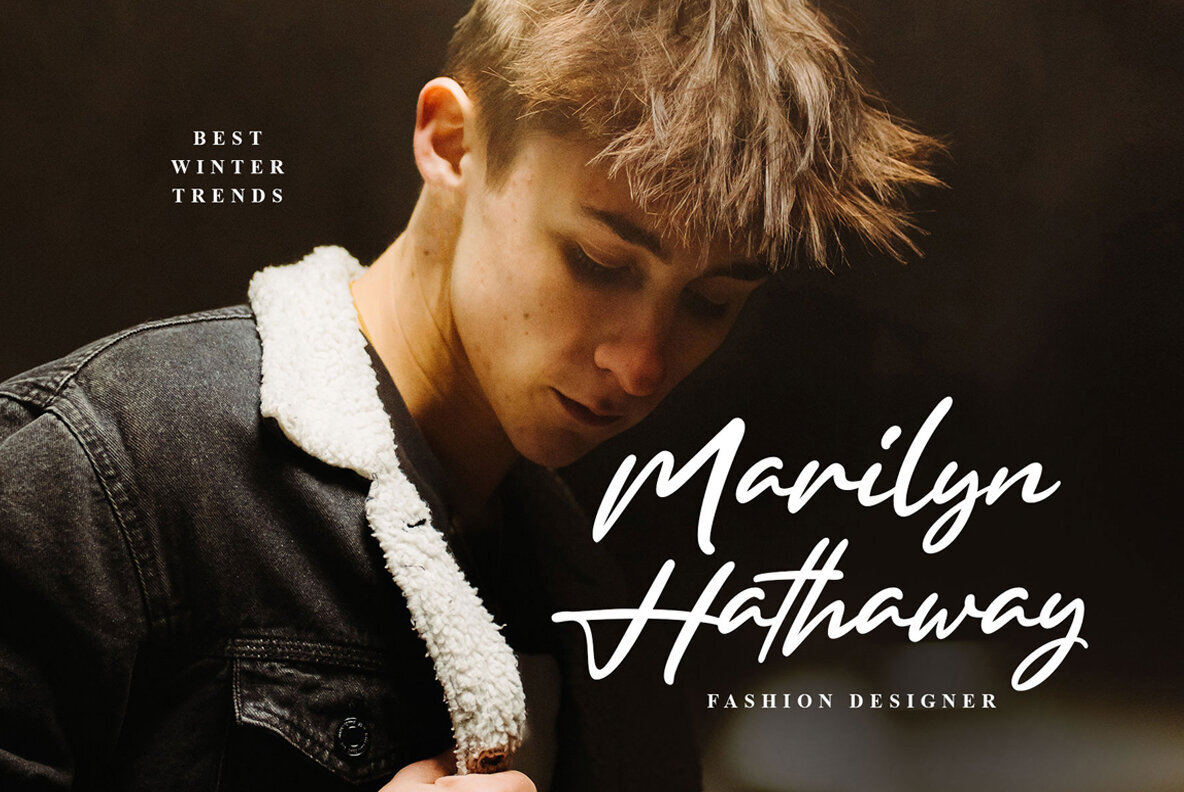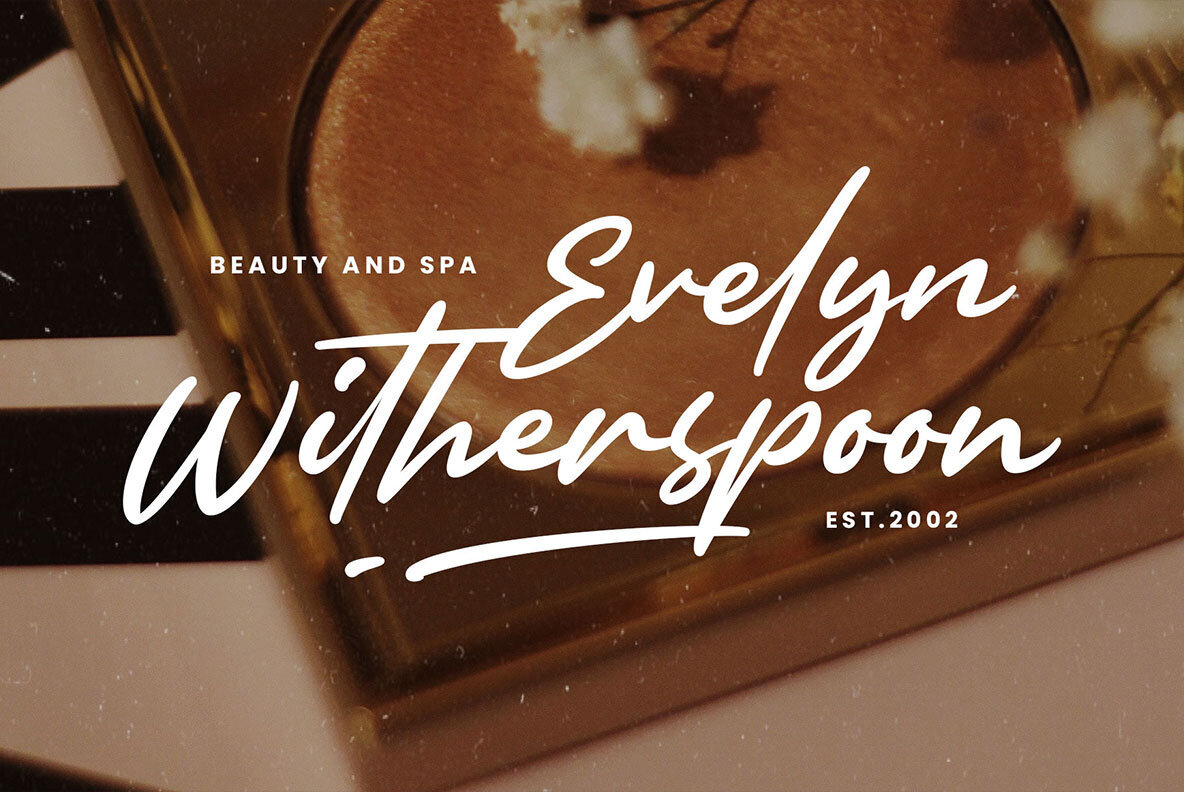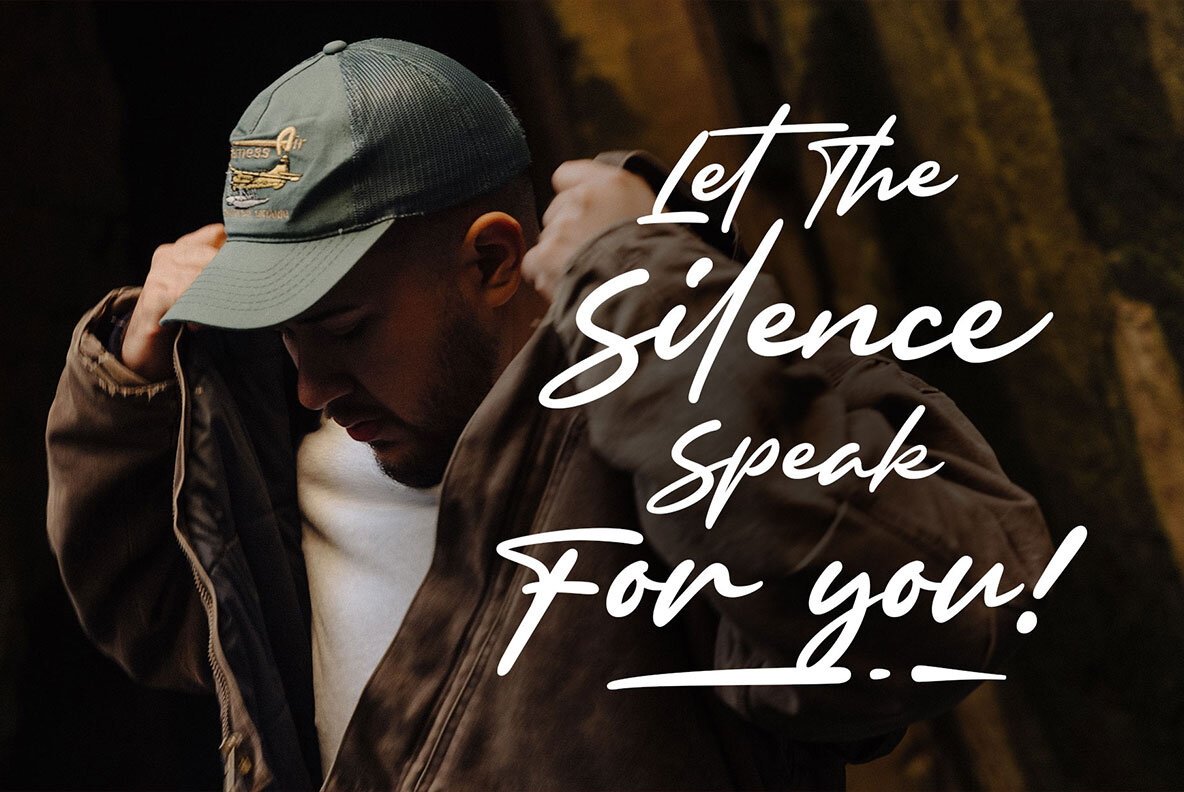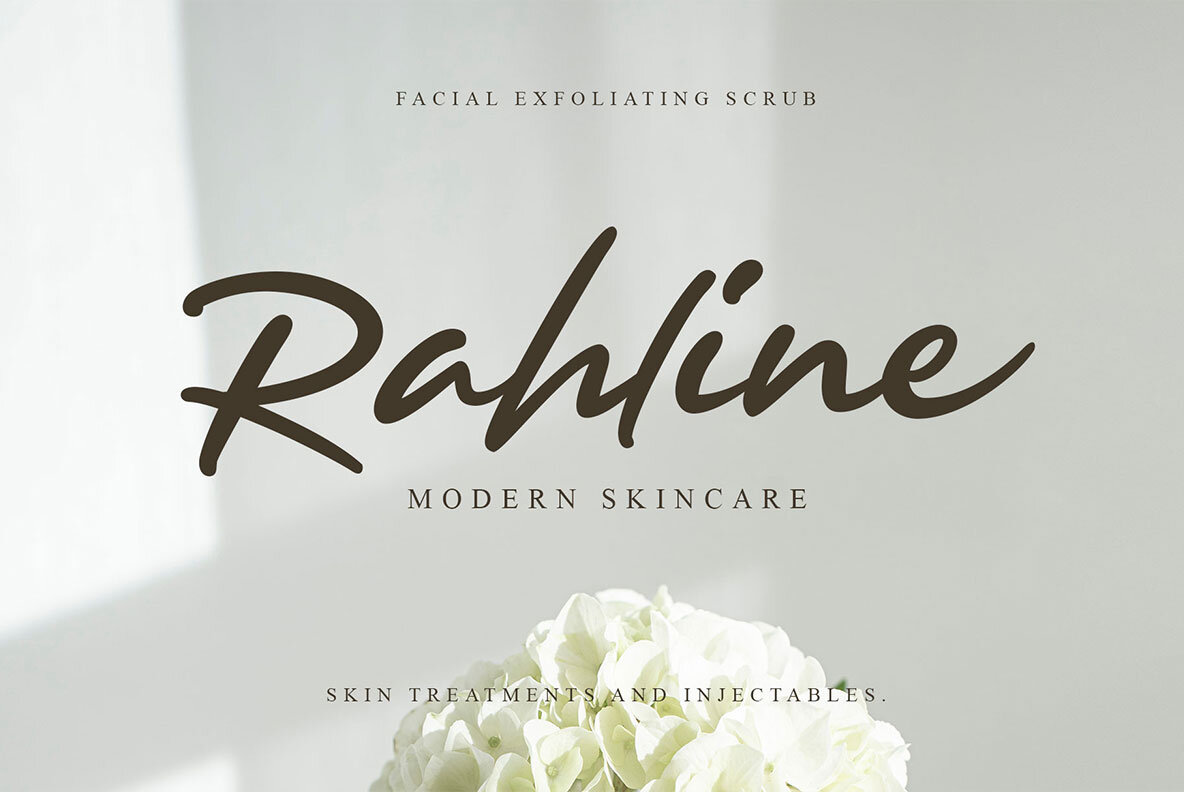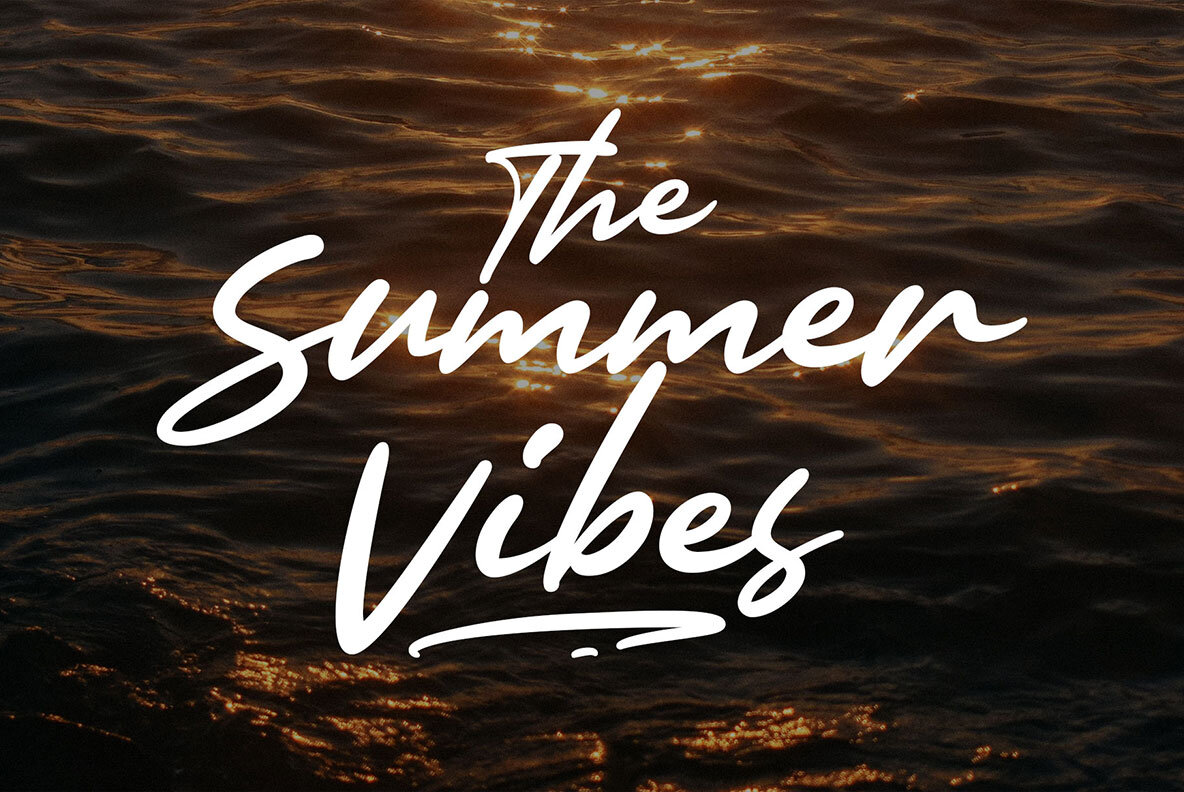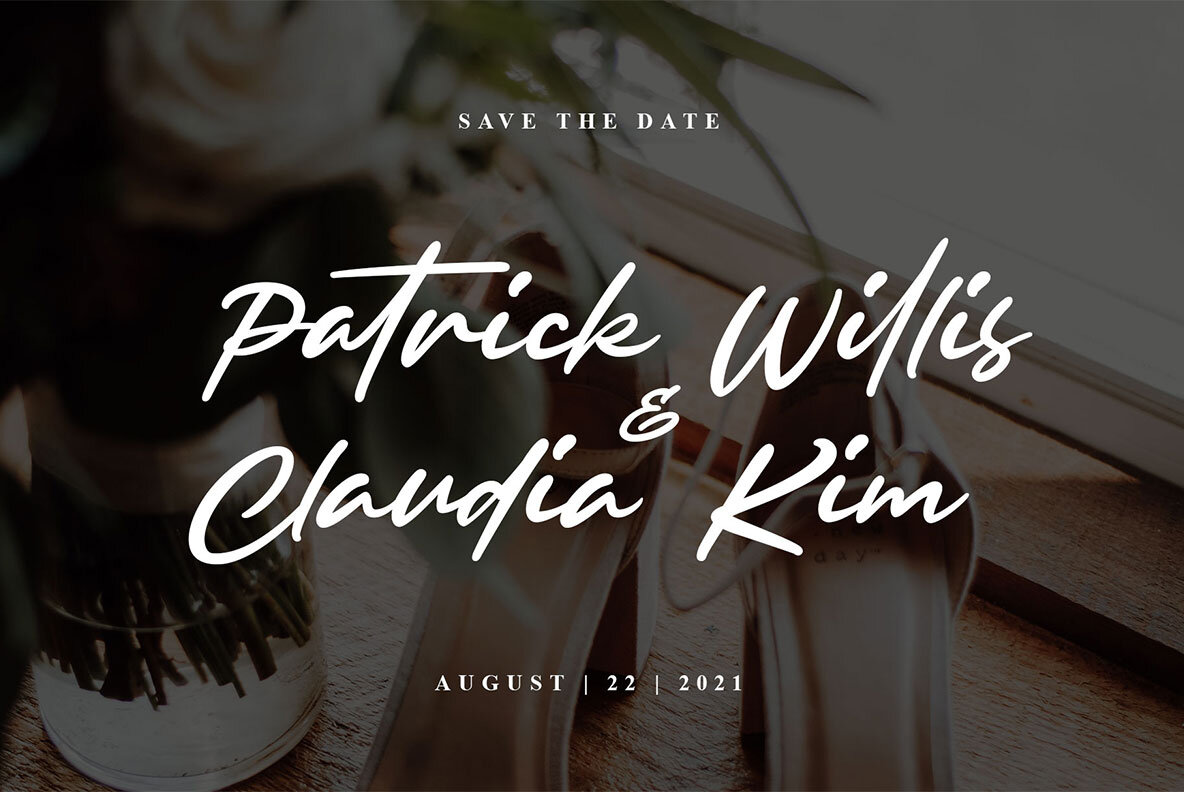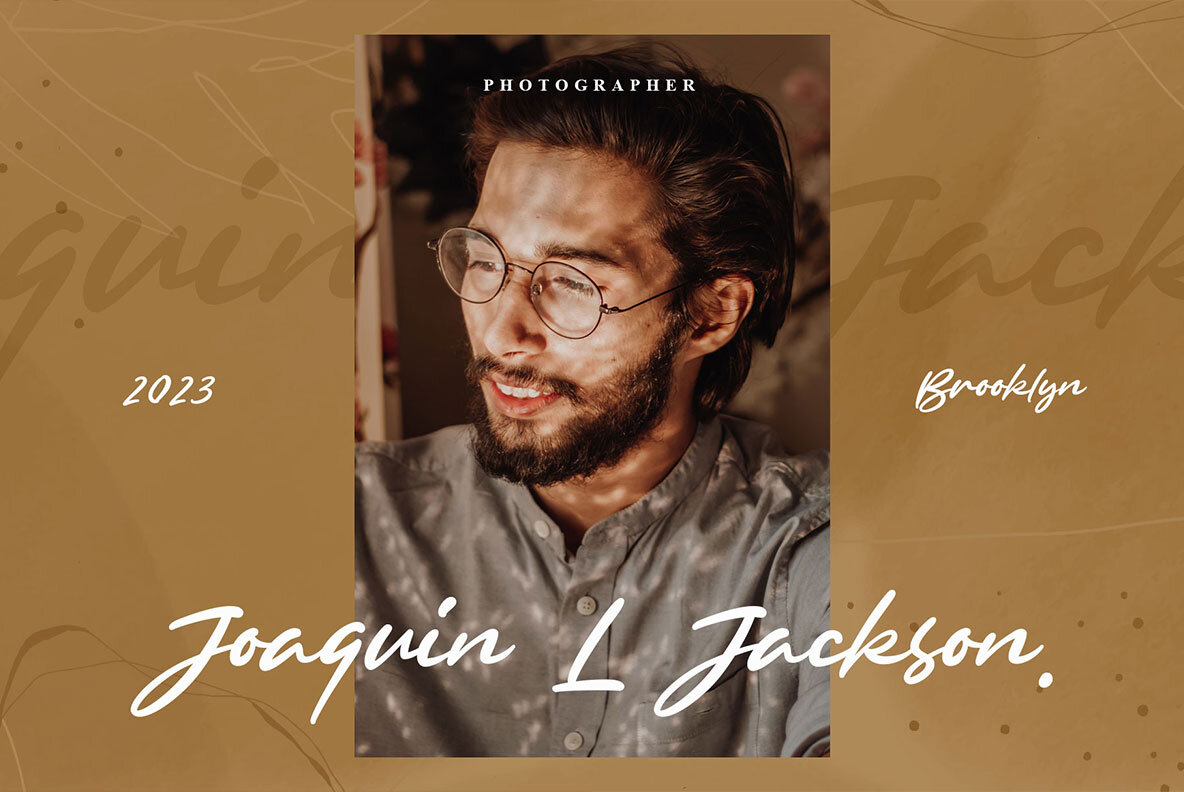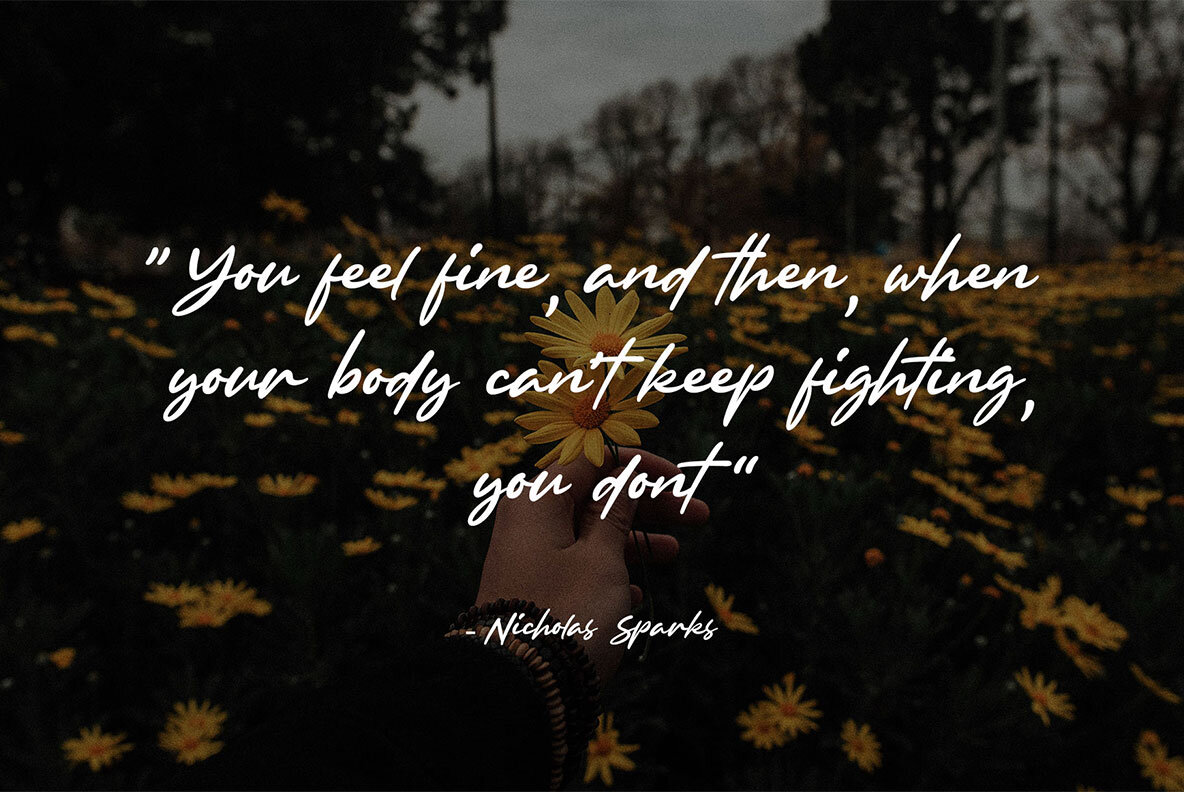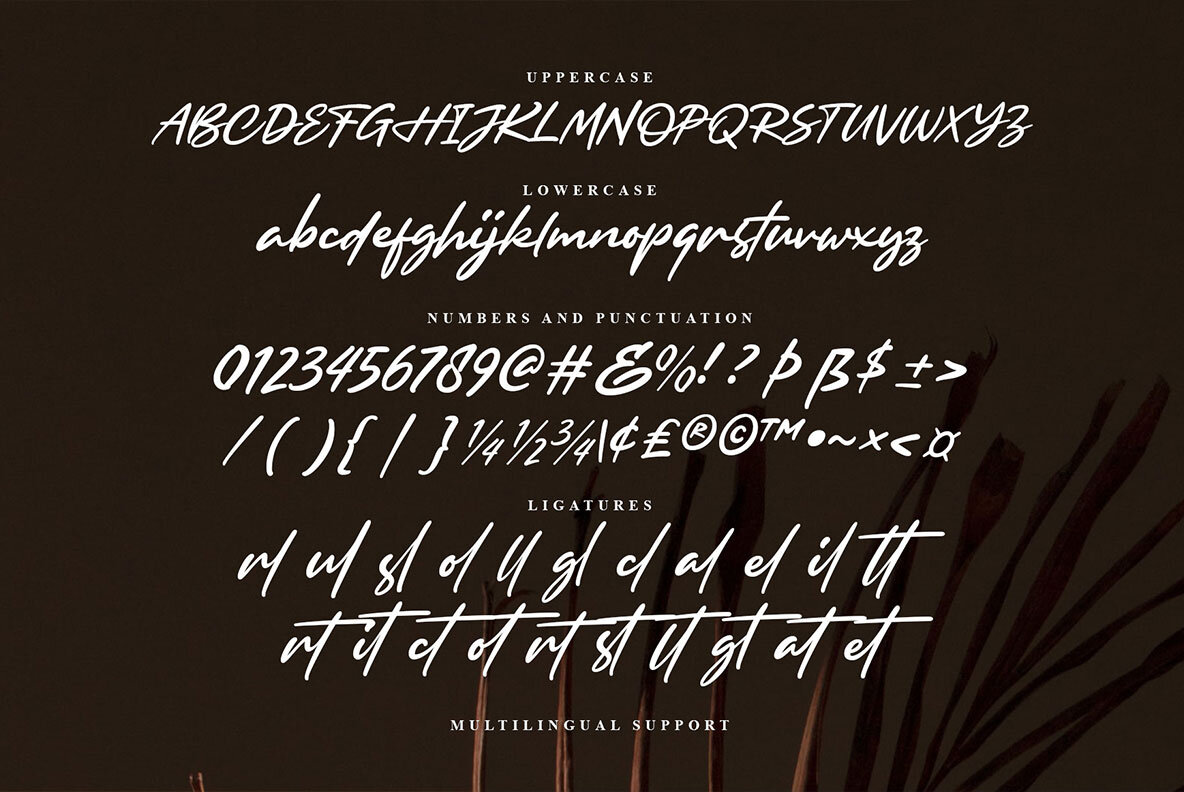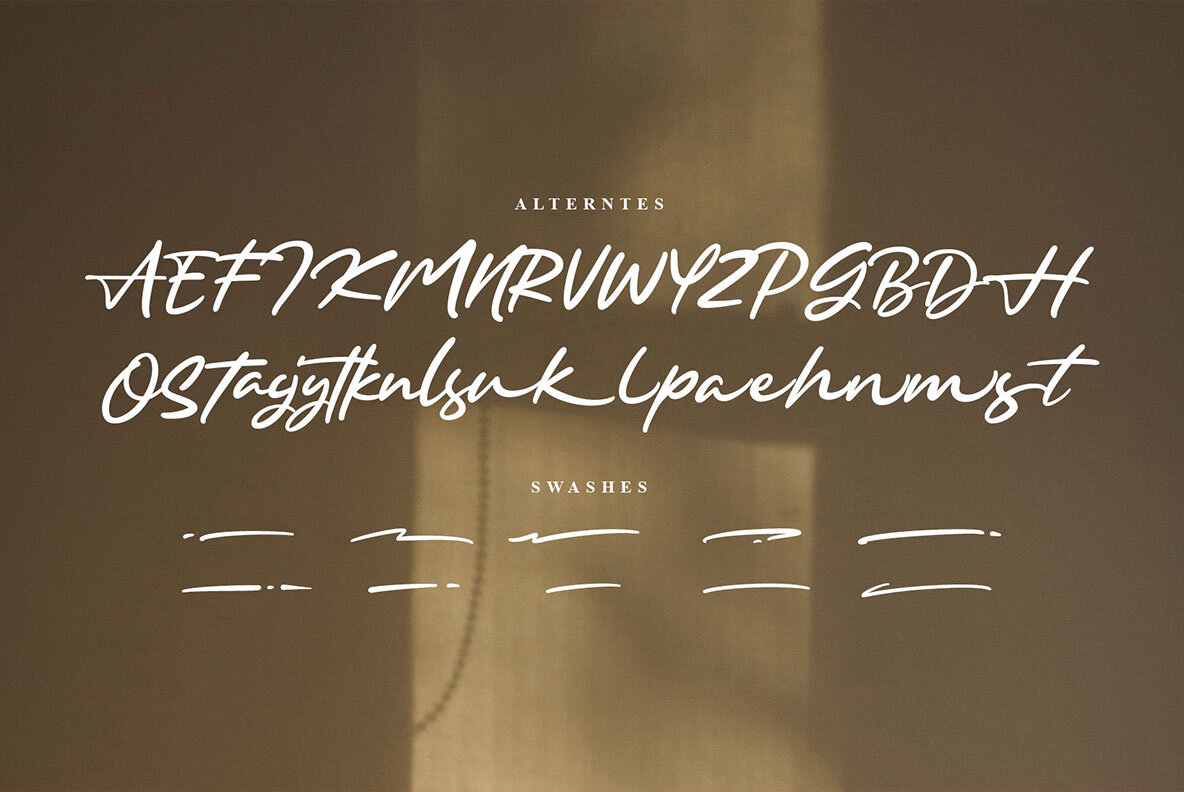
Browellay Synthya Font
Browellay Synthya Regular
Introducing Browellay Synthya, an expressive, classy, and elegant signature font that will bring joy to your designs! Designed with bolder strokes to make it stand out as a display font. This font is perfect for showcasing your personal touch as it captures the natural beauty of handwriting. Let your creativity shine with Browellay Synthya in projects like posters, flyers, quotes, apparel, logotypes, fashion, branding, motion graphics, invitations, weddings, and much more! Browellay Synthya features: